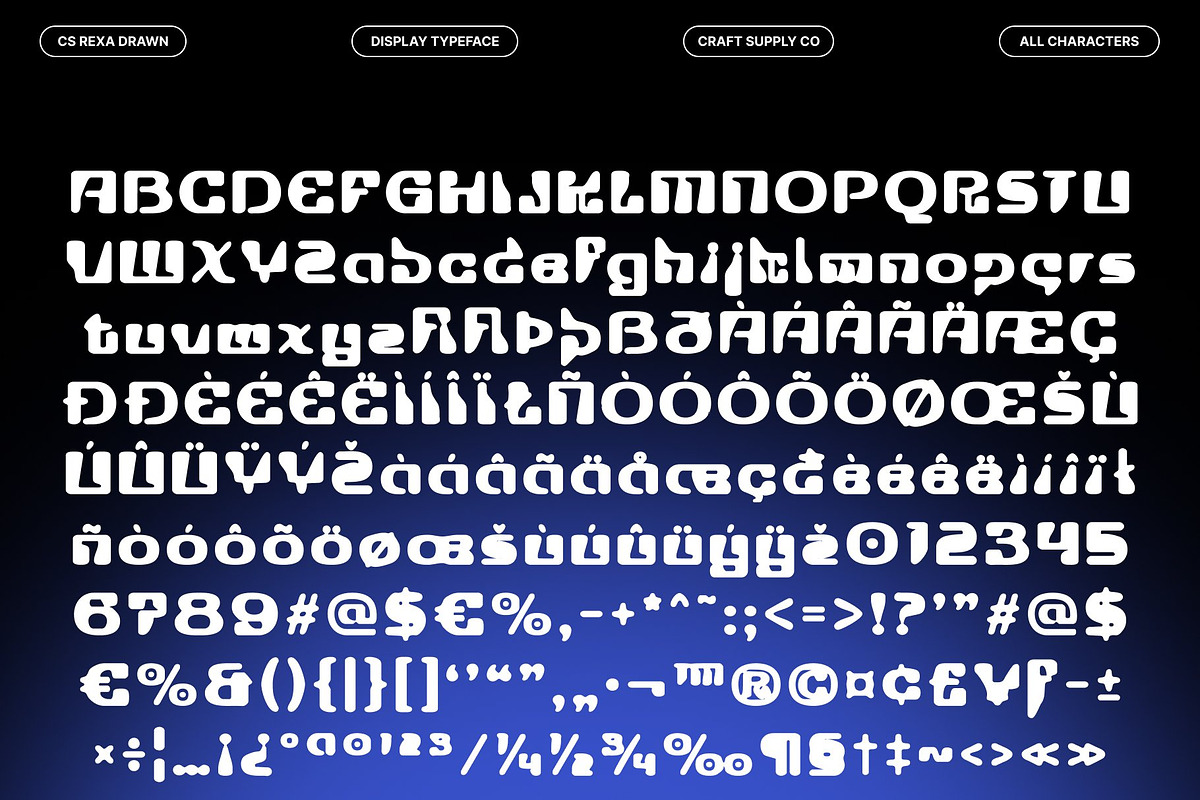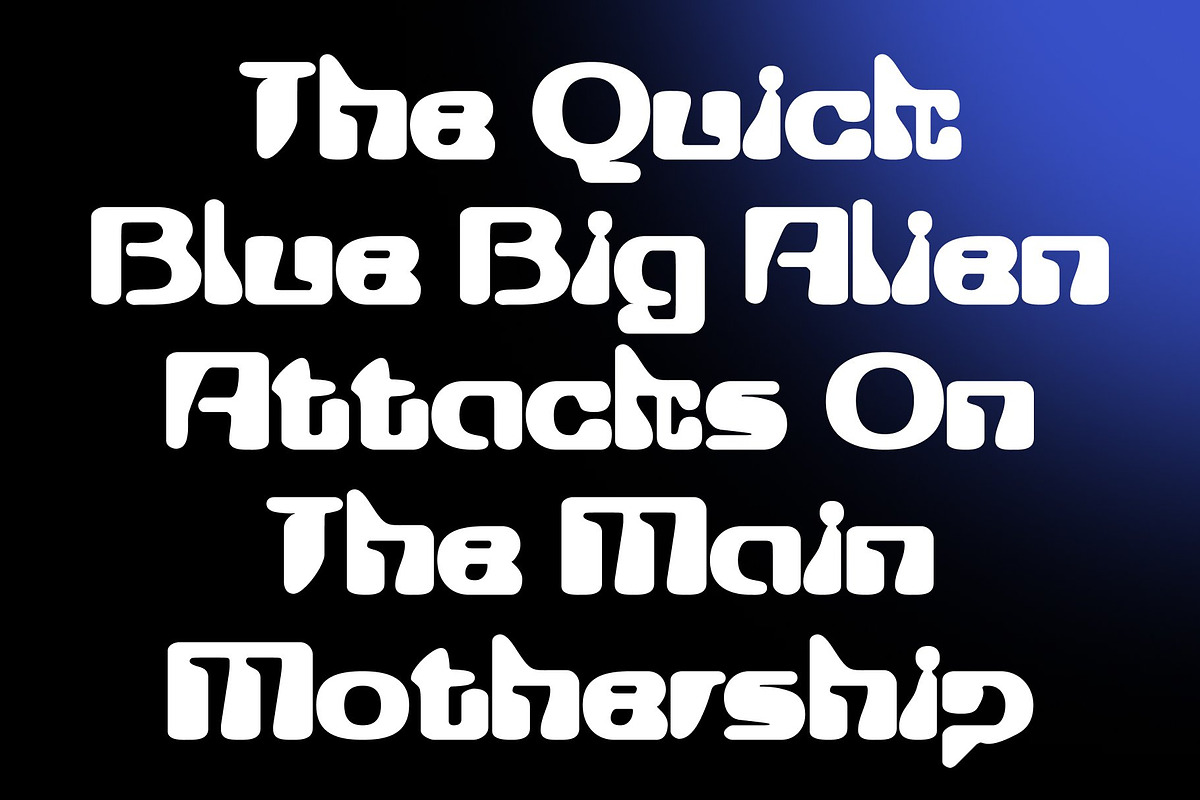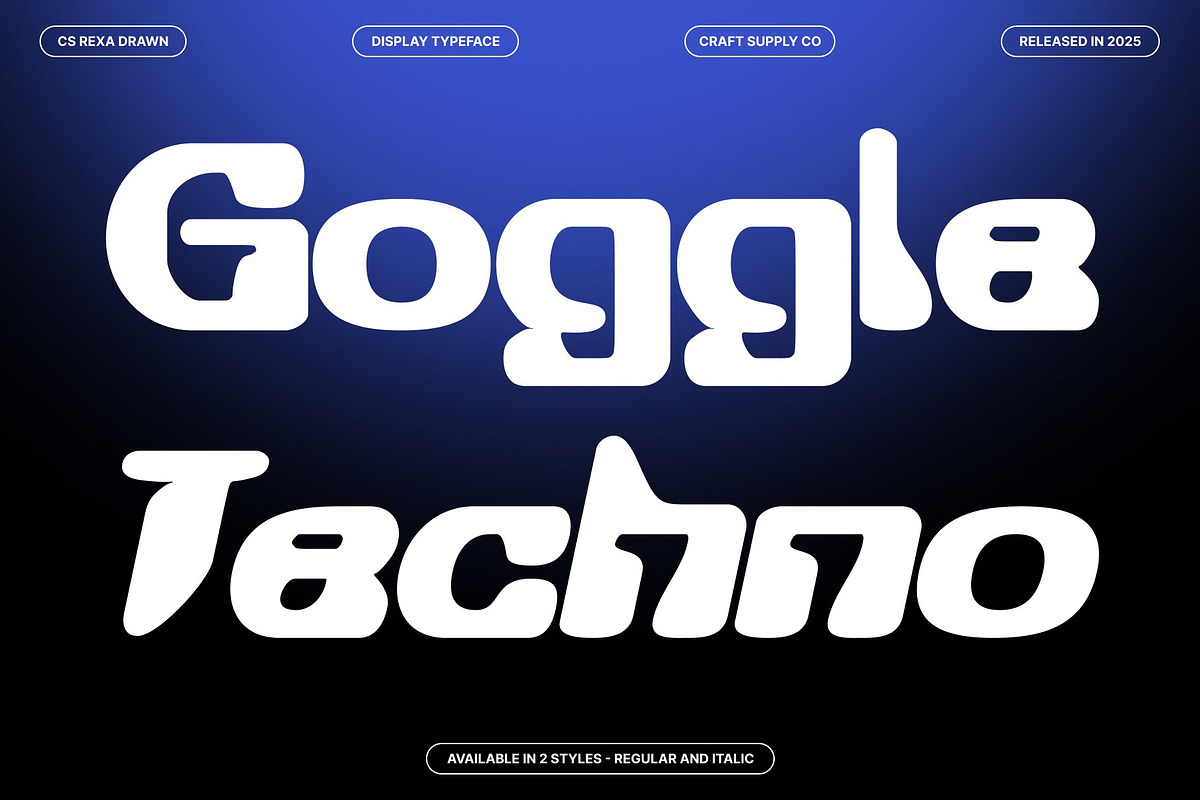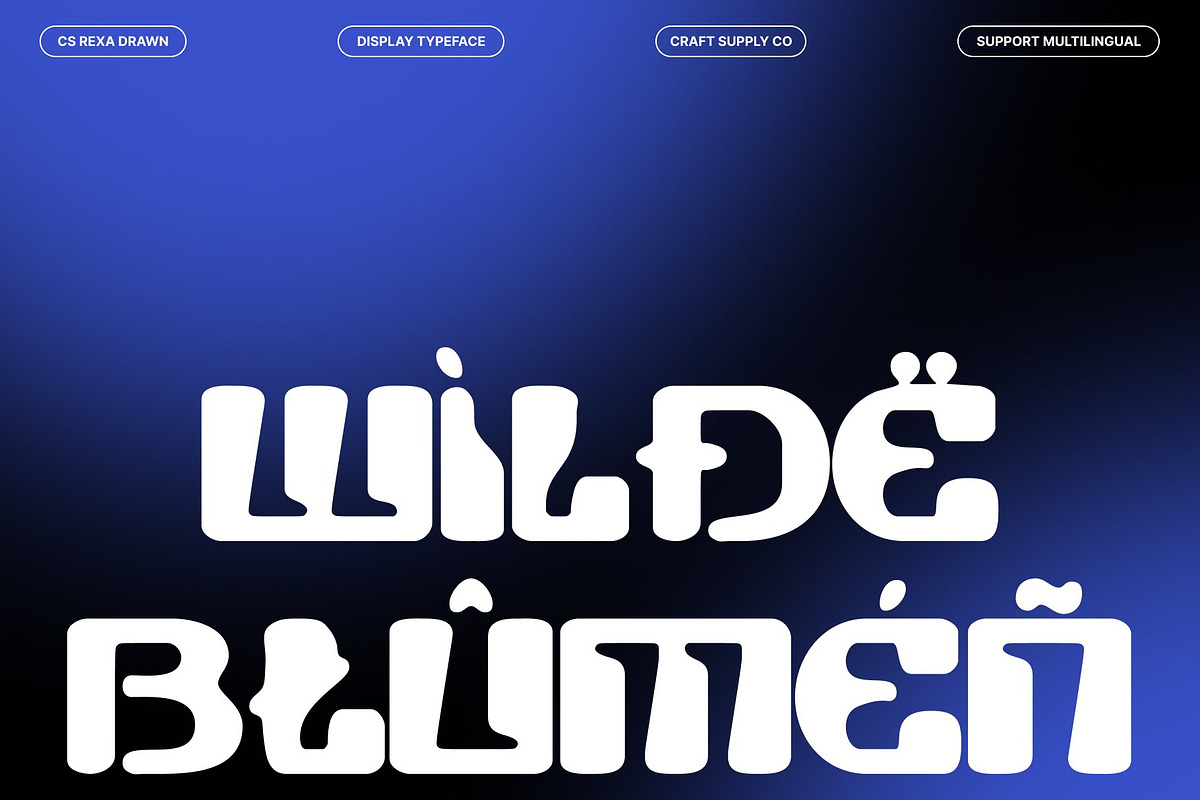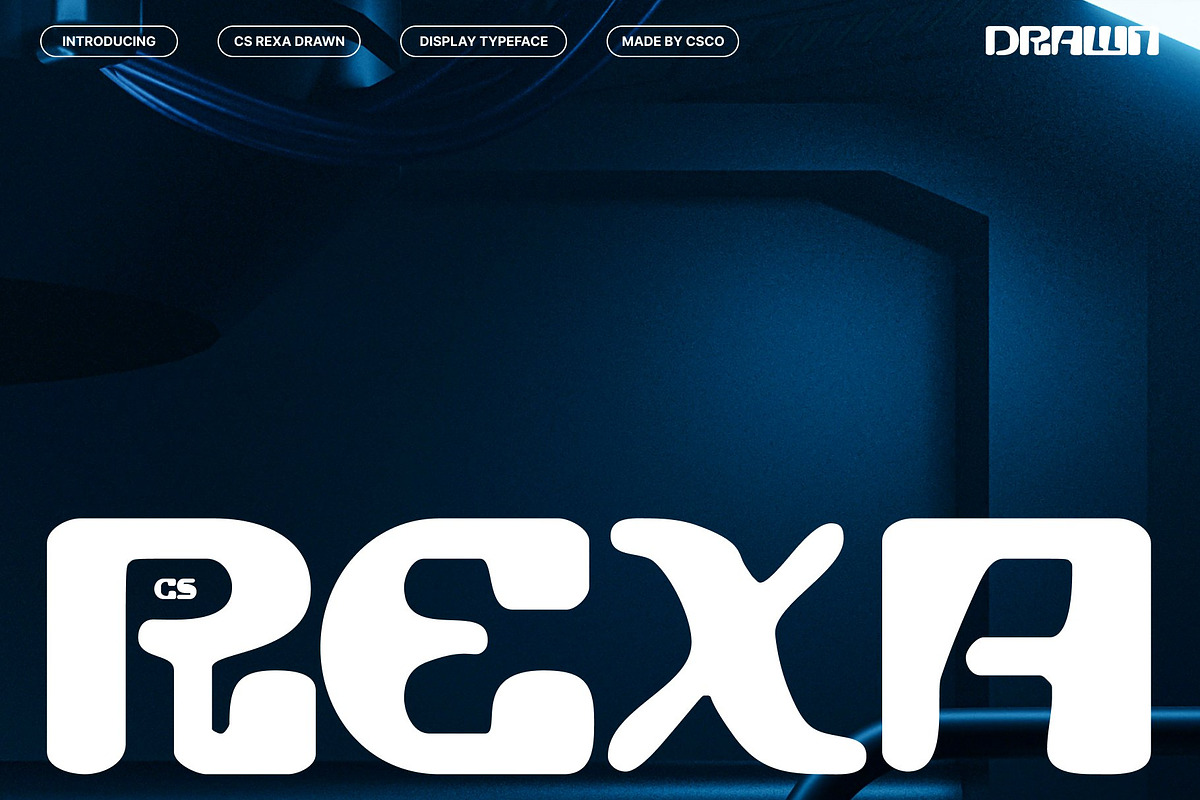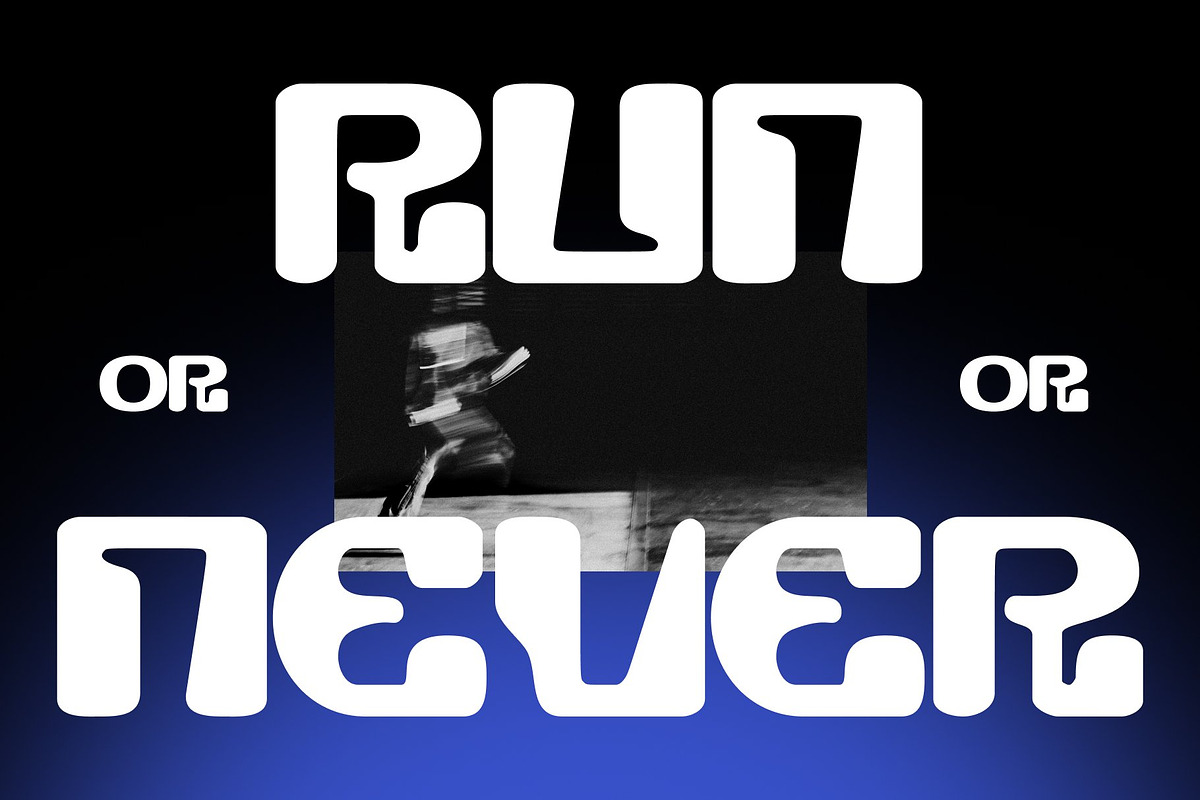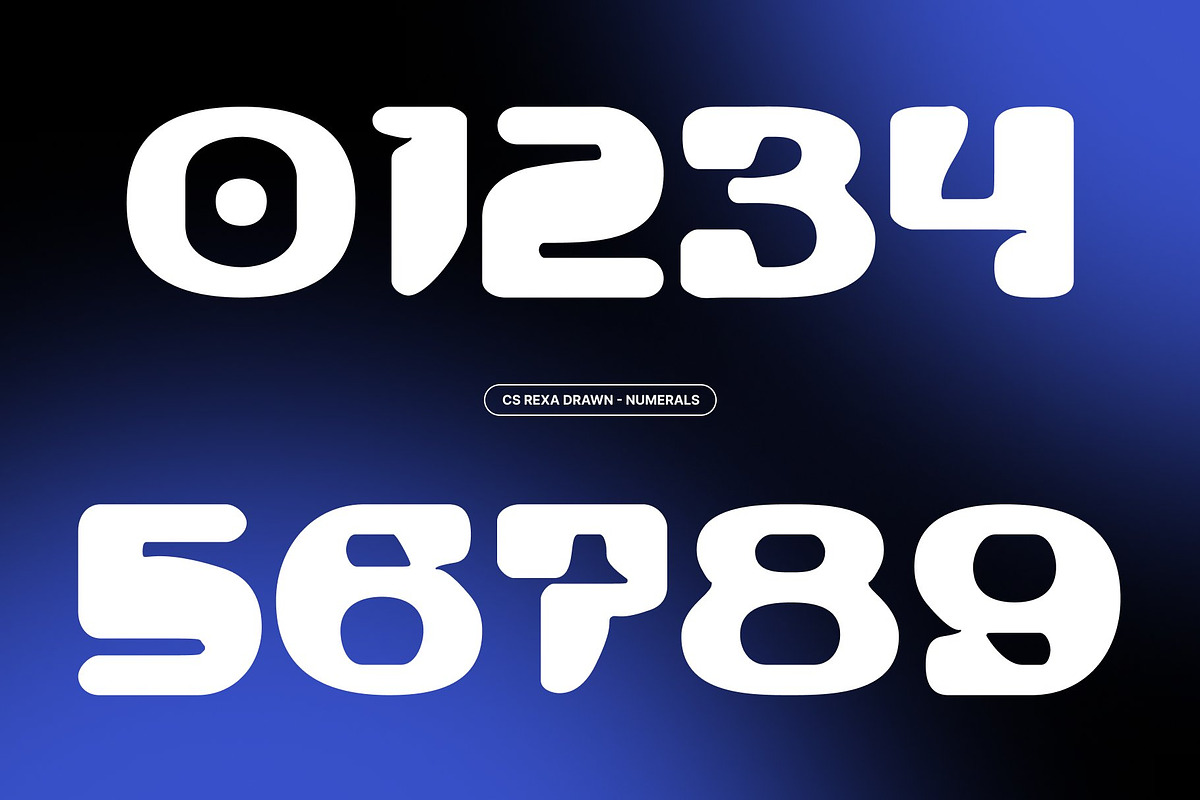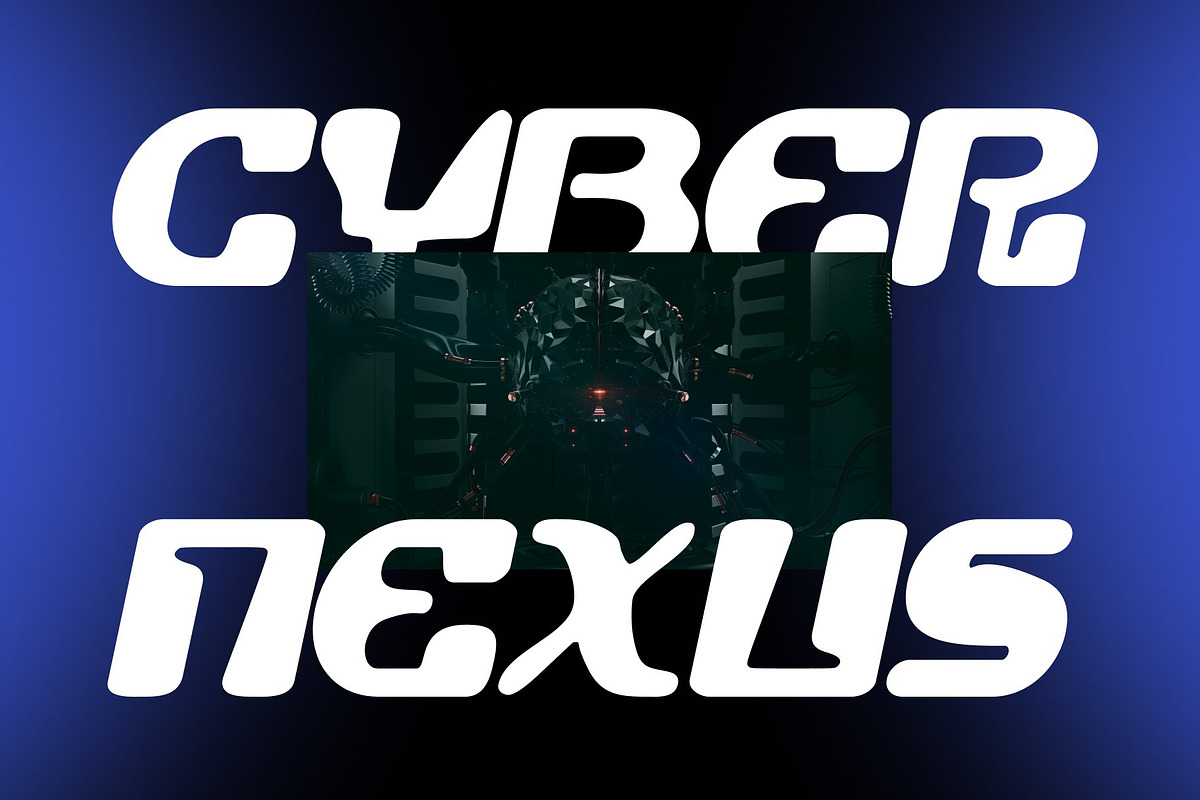
CS Rexa Drawn
CS Rexa Drawn – Futuristic Font with Y2K Energy
Futuristic Design with Hand-Drawn Y2K Style This is a futuristic display font inspired by the bold, experimental spirit of Y2K design. Its slightly rounded forms and modern structure create a retro-futuristic look that feels both nostalgic and forward-looking. Enhanced with a subtle hand-drawn texture, the font gains a unique, expressive personality while maintaining a clean, contemporary feel.
Rounded Forms with Modern Tech Character The soft, rounded details of this font balance sharp geometric construction with smooth visual flow. The drawn effect adds warmth and individuality, softening the techno aesthetic without losing clarity. This combination results in a typeface that feels modern, dynamic, and visually engaging.
Perfect for Digital, Games, and Creative Media This font is ideal for game visuals, digital interfaces, music branding, posters, and experimental graphics. Its futuristic energy and Y2K influence make it especially suitable for sci-fi, electronic, and tech-driven projects that aim to feel bold, trendy, and expressive.
A Bold Typeface for Creative Futures More than just a font, this font is a tool for forward-thinking design. By blending futuristic structure, nostalgic Y2K curves, and handcrafted texture, it delivers a distinctive typographic voice perfect for projects that want to stand out with innovation, style, and personality.